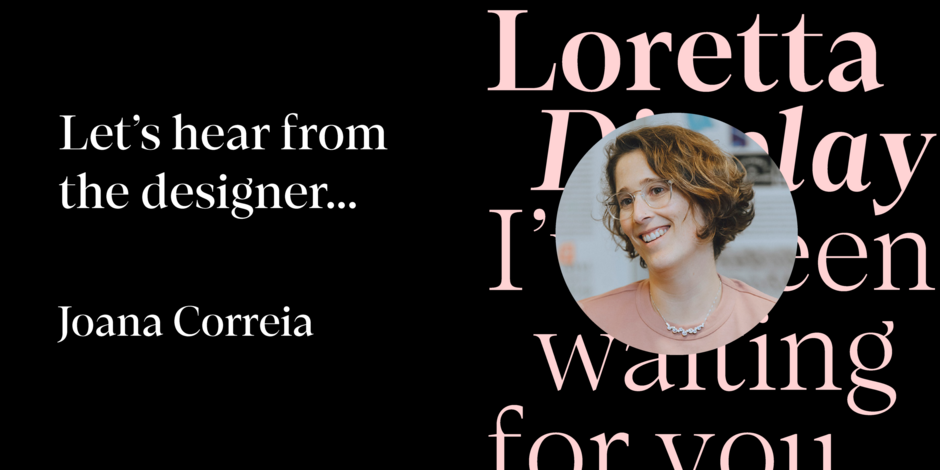
#23 Loretta Display by Nova Type Foundry
Q1: Where did the idea for the typeface come from? Did you set out to address a specific use or suite of the application? Was this a design you’d had in mind for a while?
Ans: Loretta Display is a display version of the Loretta typeface designed by Abel Martins and me in Porto, Portugal. We wanted a clean, elegant serif typeface with sharp serifs but keeping it approachable and easy to use. Loretta Display was the answer to the need to use Loretta in bigger sizes and headlines. The design came to life with the wish to create a contemporary serif typeface that we weren’t finding out there. Serif typefaces are my favorite to design!
Q2: What should graphic communicators know about the typeface, or how will the family of fonts help them create better designs?
Ans: Loretta Display can help brands communicate in headlines that want to be innovative and still bring elegance and friendliness. It can be used in big sizes, and the italics can also set a different design tone. Experimenting with italics might get new ideas for your designs.